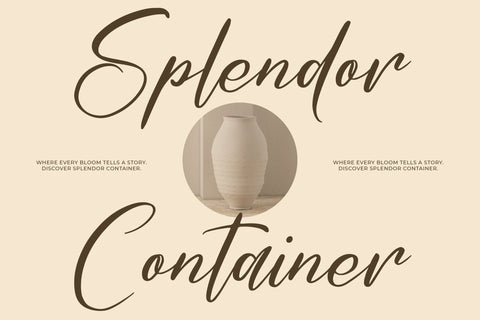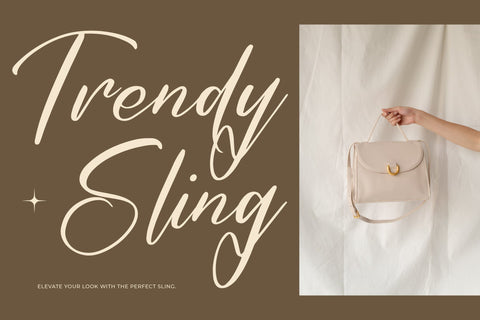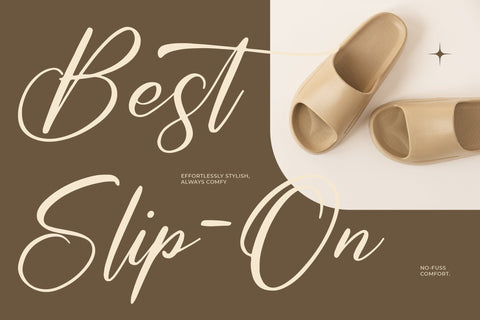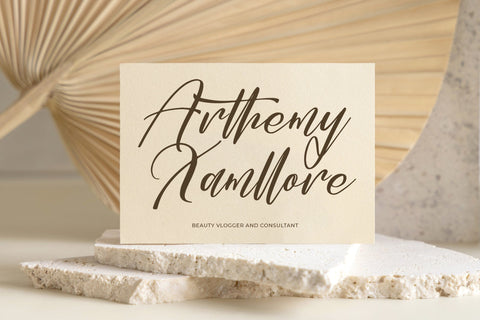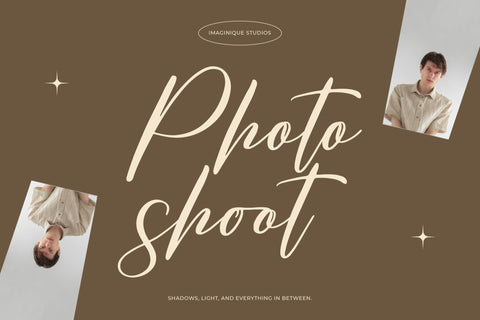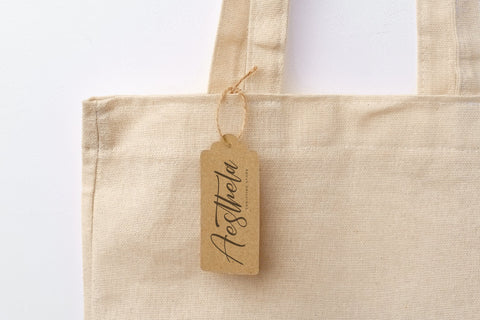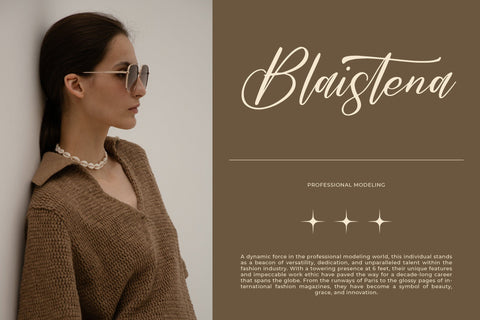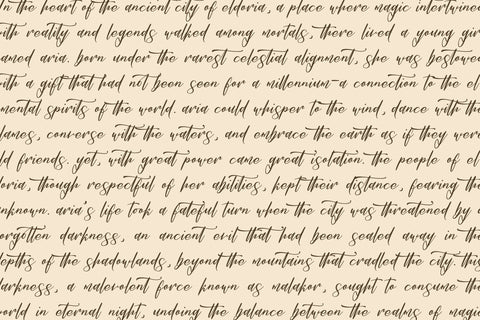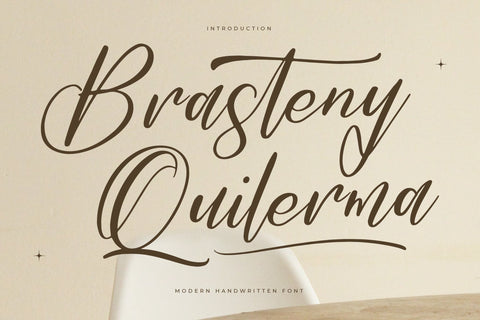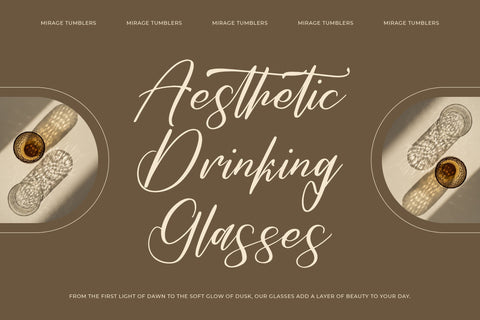
Brasteny Quilerma - Modern Handwritten Font
Brasteny Quilerma - Modern Handwritten Font , from Letterena, is a Luxury Script font, suitable for any projects such as: logos, branding projects, homeware designs, product packaging, mugs, quotes, posters, shopping bags, t-shirts, book covers, name card, invitation cards, greeting cards, label, photography, watermark, special events, and all your other luxury and beautiful projects that need a Luxury Script taste.